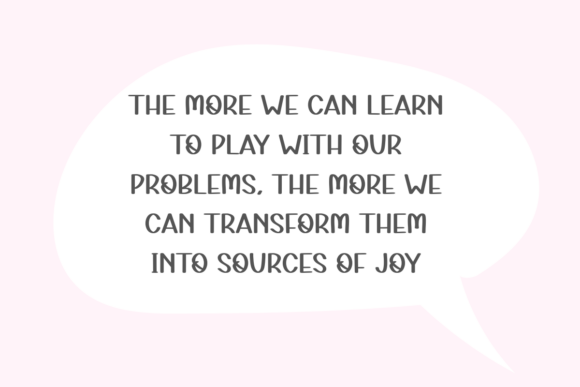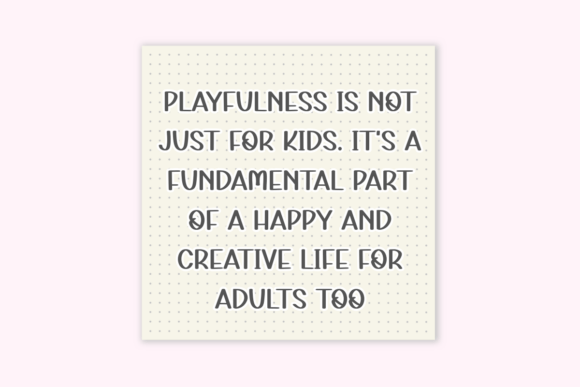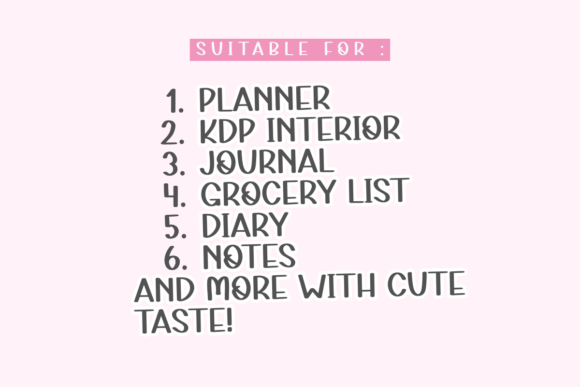
Dreaming Teacher Font: Adding a Personal Touch to Your Designs
In the world of design, fonts play a crucial role in conveying the tone and personality of a project. If you’re looking for a font that exudes a relaxed and friendly vibe, look no further than the Dreaming Teacher Font. This casual handwritten font is perfect for designers and crafters who want to add a warm and approachable touch to their designs.
What is Dreaming Teacher Font?
Dreaming Teacher Font is a beautifully crafted handwritten font that boasts smooth strokes, natural curves, and well-balanced letterforms. Its effortless flow and versatile character make it an ideal choice for a wide range of design projects, from quotes and branding to packaging and social media posts.
Characteristics of Dreaming Teacher Font
So, what makes Dreaming Teacher Font so special? Here are some of its key characteristics:
- Smooth Strokes: The font features smooth, flowing strokes that give it a natural and authentic feel.
- Natural Curves: The curves in the font are organic and fluid, adding to its relaxed and friendly personality.
- Well-Balanced Letterforms: Each letterform is carefully crafted to ensure that the font is easy to read and visually appealing.
- Effortless Flow: The font has a natural flow that makes it perfect for use in a variety of design projects.
Uses of Dreaming Teacher Font
Dreaming Teacher Font is a versatile font that can be used in a wide range of design projects, including:
- Quotes: The font is perfect for use in quotes, adding a personal and inspirational touch to your designs.
- Branding: Use the font to create a unique and memorable brand identity that stands out from the crowd.
- Packaging: Add a touch of personality to your packaging designs with this charming font.
- Social Media Posts: Use the font to create engaging and eye-catching social media posts that grab attention.
Benefits of Using Dreaming Teacher Font
So, why should you choose Dreaming Teacher Font for your designs? Here are some of the benefits of using this font:
- Readability: The font is easy to read, making it perfect for use in a variety of design projects.
- Charm: The font has a charming and authentic feel that adds a personal touch to your designs.
- Versatility: The font can be used in a wide range of design projects, making it a great addition to your font library.
- Unique Personality: The font has a unique and relaxed personality that sets it apart from other fonts.
Tips for Using Dreaming Teacher Font
Here are some tips for getting the most out of Dreaming Teacher Font:
- Use it in combination with other fonts: Experiment with pairing the font with other fonts to create a unique and visually appealing design.
- Adjust the size and color: Play around with different sizes and colors to find the perfect combination for your design.
- Use it in digital and print designs: The font is versatile and can be used in both digital and print designs.
In conclusion, Dreaming Teacher Font is a beautiful and versatile handwritten font that adds a relaxed and friendly personality to any design project. With its smooth strokes, natural curves, and well-balanced letterforms, it’s perfect for use in quotes, branding, packaging, and social media posts. Whether you’re a designer or crafter, this font is sure to become a favorite in your font library.